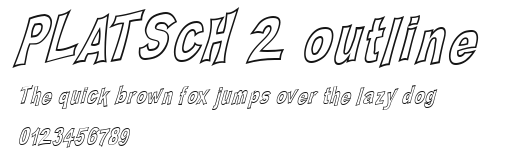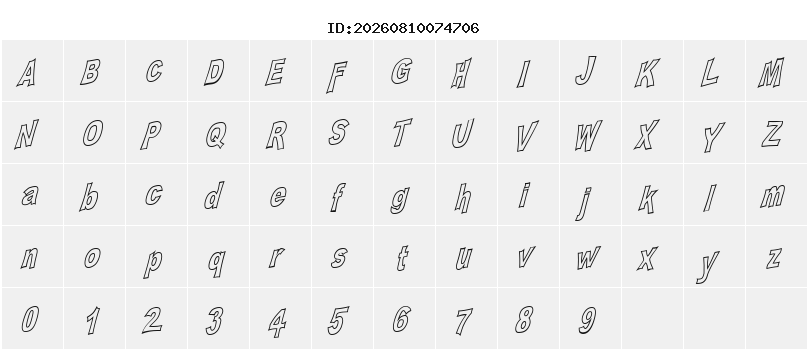
• Font Name: PLATSCH 2 outline
• Font ID: PLATSCH 2
• Full Font Name: PLATSCH 2 outline
• Copyright: designed by Dieter Schumacher ©1999
About PLATSCH 2 outline.ttf
PLATSCH 2 outline.ttf is a modern, elegant sans-serif font designed for ultimate readability and visual harmony. Perfect for branding, headlines, web design, and print materials.